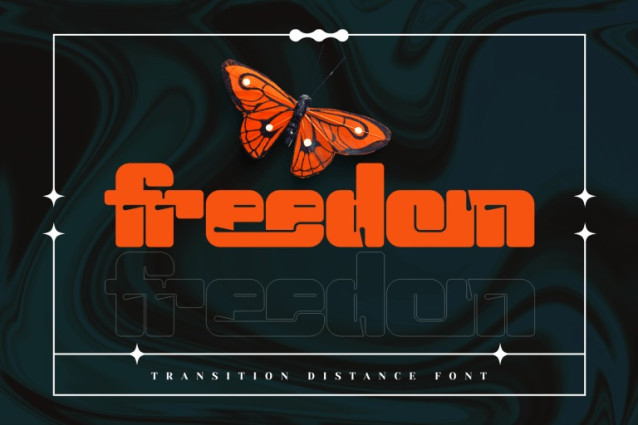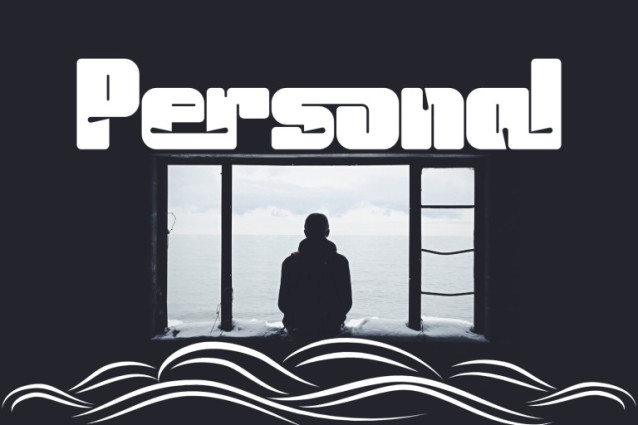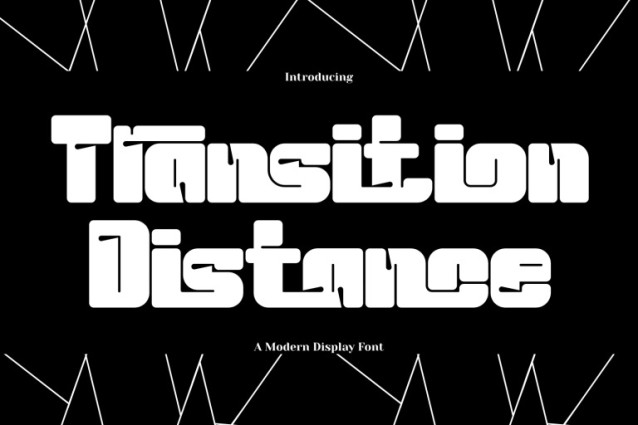
Transition Distance – Structure Font is a bold distorted sans-serif display font that combines strong geometric structure with subtle glitch-inspired details. Featuring thick, rounded letterforms and compact spacing, this typeface delivers a powerful and modern visual presence. Designed with slight distortions and dynamic cuts, Transition Distance adds a unique edge without sacrificing readability. Its clean yet unconventional style makes it perfect for headlines, branding, posters, and contemporary design projects.
🔤Features:
Uppercase & Lowercase Letters
Around 100 Special Ligatures & Alternates
Accented Characters for multilingual support
🔤About 100 ligatures combined with Stylistic Alternates Font: